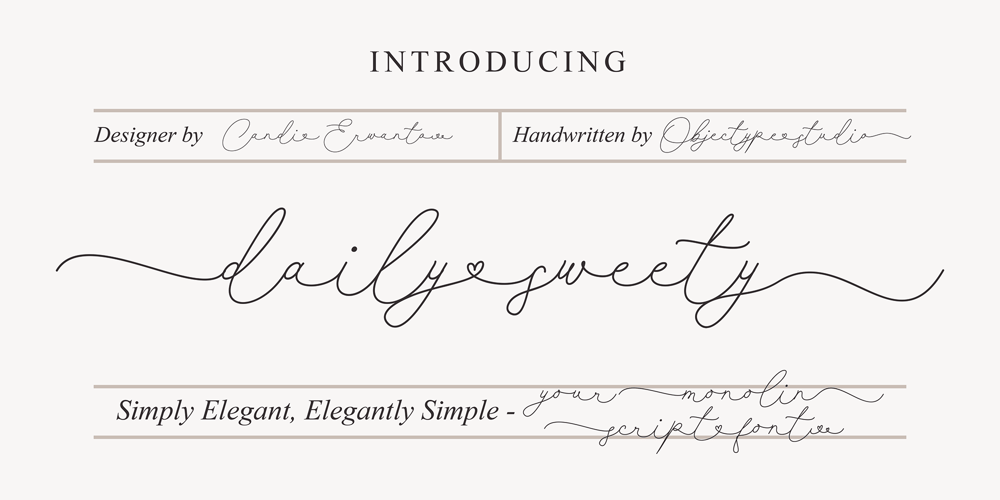
Daily Sweety
Daily Sweety font
Daily Sweety Font Family was designed by Candi Erwanto and published by Objectype. Daily Sweety contains 1 styles and family package options. Daily Sweety is a carefully crafted script monoline font by Objectype Studio. This font features Ligature and Alternative features, allowing you to customize your designs with unique and attractive character variations.This font is specifically designed for a market seeking feminine, minimalist, beautiful, and unique designs. With its smooth lines and elegant shapes, Daily Sweety can bring a touch of elegance and beauty to any of your designs.Daily Sweety is perfect for various types of designs such as logos, invitations, greeting cards, branding products, posters, and much more. With its wide adaptability, this font can help you create standout and memorable designs.Get Daily Sweety today and start creating amazing designs!